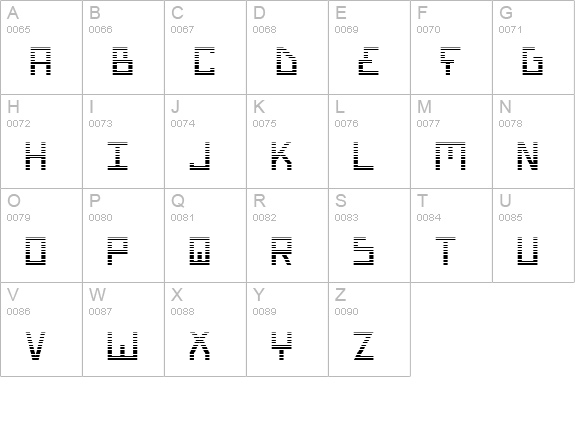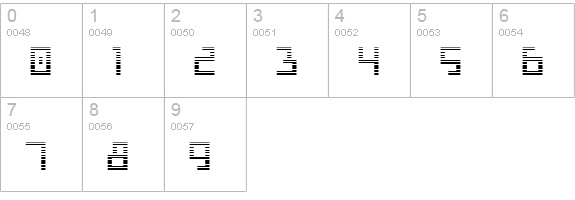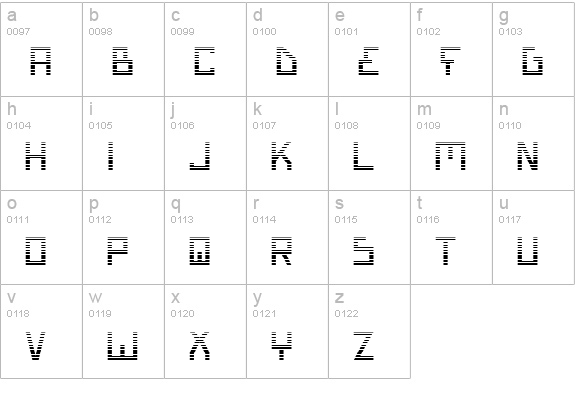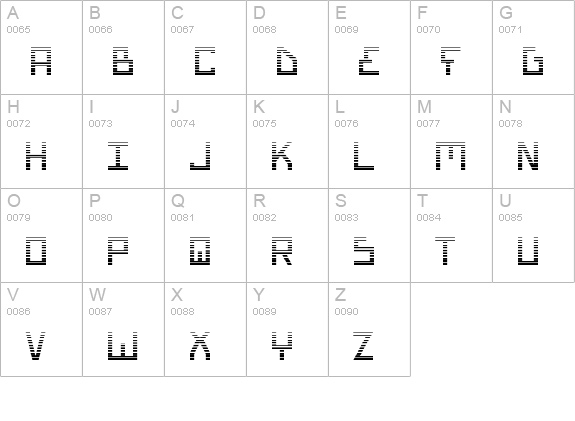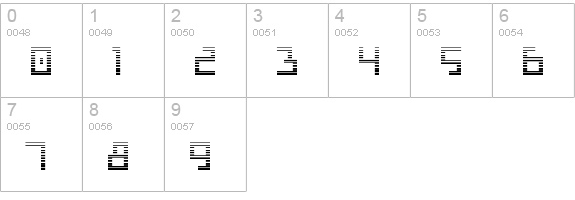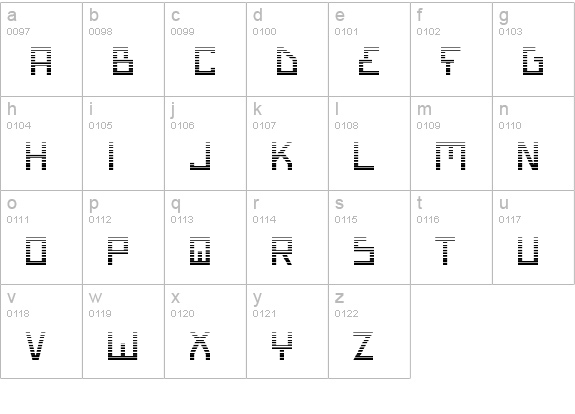
Introducing the spectacular Bionic Type Gradient font, a futuristic and dynamic typeface that seamlessly combines sleek bionic elements with a captivating gradient effect. This innovative font is perfect for projects that demand a modern and edgy look, making it a versatile choice for branding, advertising, and digital designs. What sets Bionic Type Gradient font apart is its striking visual appeal and attention-grabbing design. The sleek lines and intricate details of the bionic-inspired characters are beautifully complemented by the subtle gradient effect, adding depth and dimension to each letterform. Whether you're looking to make a bold statement or simply want to add a touch of modern sophistication to your designs, Bionic Type Gradient font is sure to impress. And the best part? This exceptional font is available for free download exclusively at FontsMarket.com, making it easily accessible for all your creative projects. Don't miss out on this opportunity to elevate your designs with the cutting-edge style of Bionic Type Gradient font - download it today and unleash your creativity!